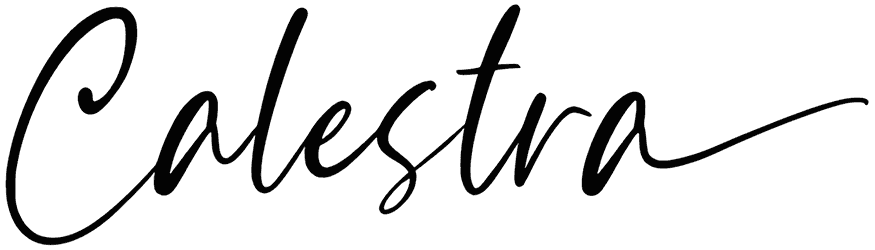
Calestra Font
Calestra fonts belong to the group of feminine fonts that you have been looking for on various websites for a long time. You will not find the cursive and skillful lines of the great characters anywhere.
This handwritten font does not support numbers, but for many people who like to have postcards and girly themes, it is a great choice and will accompany them until the end of the project.
Calestra is a modern handwritten font. With a classy and natural handwritten style, it brings a classy and chic typeface. Calestra is best used for weddings, branding, logotype, and quotes.